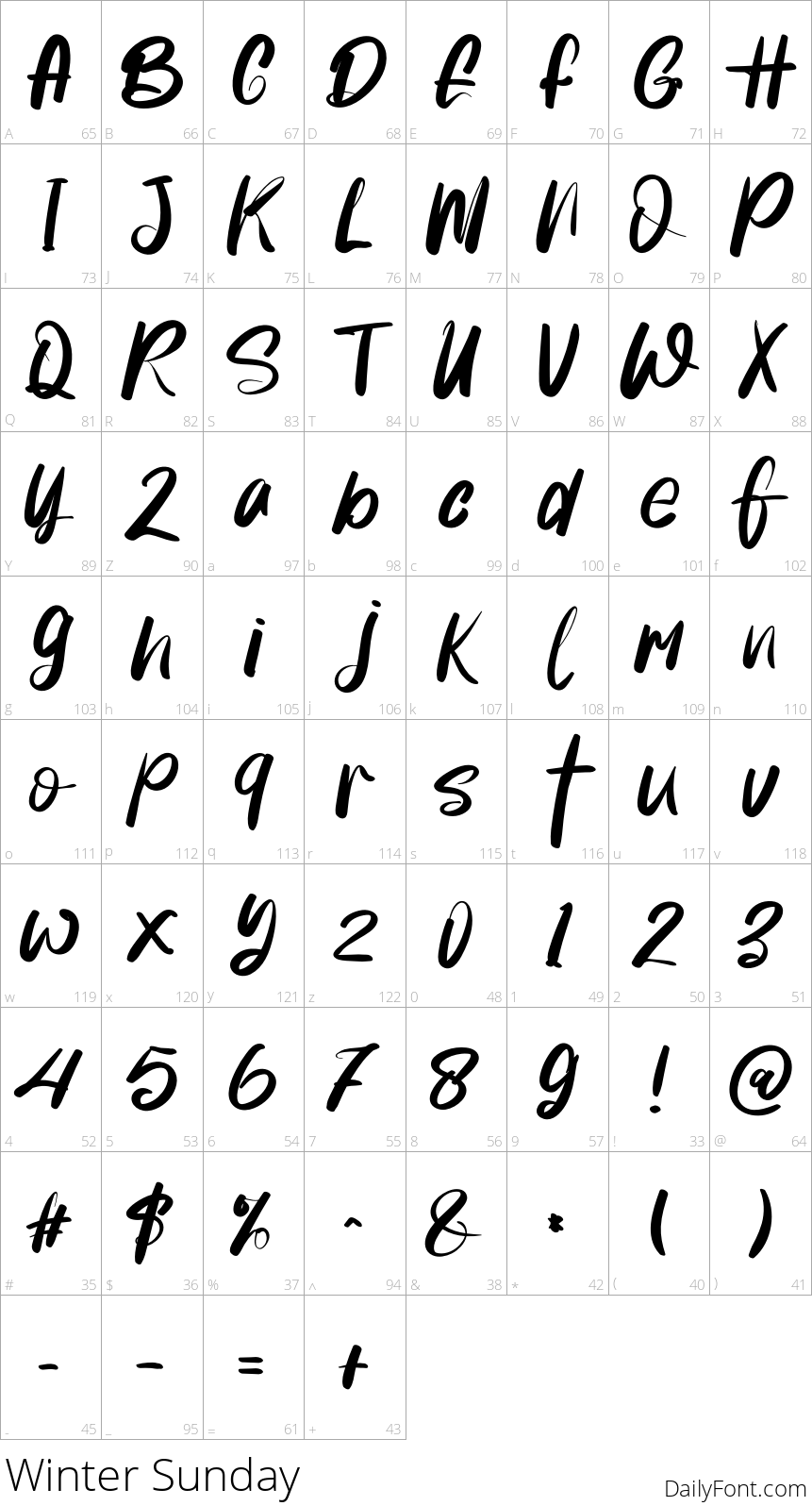
Winter Sunday
Winter Sunday is an exquisite handwritten font that epitomizes warmth and connection. Its flowing strokes and relaxed appearance make it ideal for a wide range of design projects. Whether you're working on invitations, greeting cards, or branding materials, Winter Sunday brings a joyful and romantic flair that captivates and engages your audience.
This versatile font enhances any design aesthetic, transforming ordinary text into a work of art. Riders of creative inspiration will appreciate its charming elegance, while those looking to create a memorable impact will find Winter Sunday to be the perfect choice. Elevate your designs with this delightful font that beautifully merges sophistication with a personal touch, making every word resonate with love and warmth.